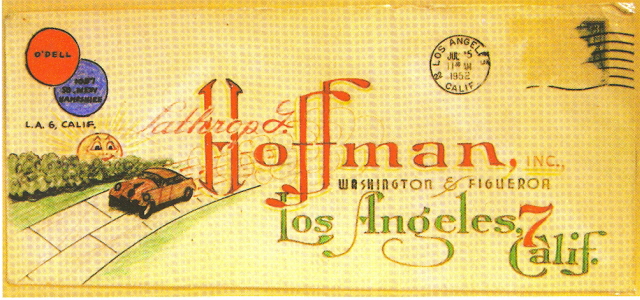
I belong to the American First Day Cover Society and as such, I receive a bi-monthly journal called First Days. I opened the June issue this AM, and on page 51 is an article entitled 'Unexpected "Envelope Art" Discovery' by Michael Litvak. He found three framed groups of these envelopes in a Honda Dealership in Duarte. There are seven different envelopes depicted in the article, and the author would like to find out a little bit more about the artist if he could.
The lettering has sign artist written all over it, and there's a reference to it on one of them - BROKEN BRUSH-SIGNS.
These are all over fifty years old, so the chances that the man is still alive are - well - possible? The name on the one I've included is O'Dell. The owner of the envelopes, Mr. Lathrop Hoffman, cannot recall the first name, and the records (as well as the Studebaker automobiles which he sold) are long since gone. The address, if it doesn't show up too well, is 1037 South New Hampshire.There are a couple other return addresses among the seven: 6435 8th Ave, LA, and 16938 Elgar Avenue in Torrance. There is also a name of O'Dell Dip & Daub Studio on one of them. Anybody in the LA Area recognize the name?
Google offers no street cam in Torrance. Can someone tell me what business (if any) occupies the building at 16938 Elgar Avenue?